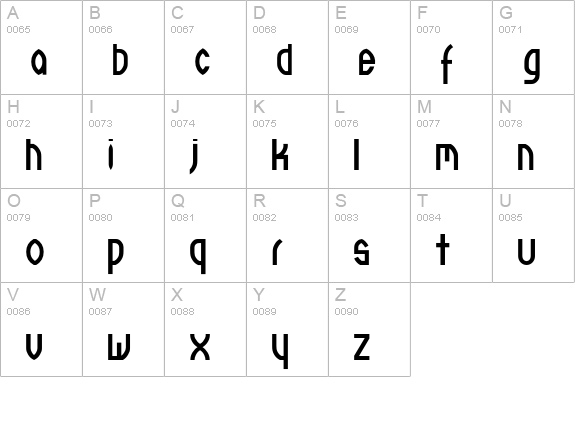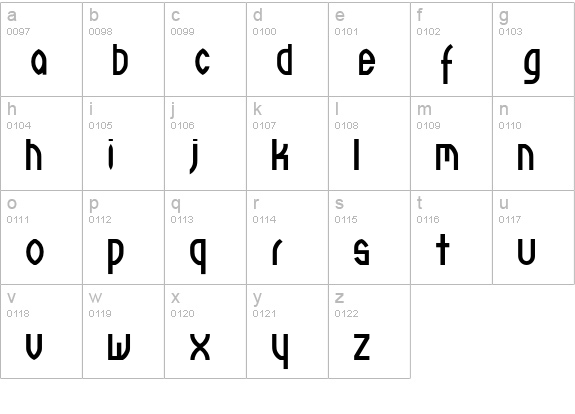
Kryptonic Font Details
Introducing the captivating and futuristic Kryptonic font, a versatile typeface that exudes a sense of modernity and innovation. With its sleek lines and unique geometric shapes, Kryptonic is perfect for creating eye-catching designs that demand attention. This cutting-edge font is available for free download at FontsMarket.com, making it easily accessible for designers looking to add a touch of boldness to their projects. Whether you're working on branding, advertising, or digital art, Kryptonic is sure to make a statement and leave a lasting impression on your audience. Embrace the power of Kryptonic font and unleash your creativity with this dynamic and striking typeface that is bound to elevate your designs to the next level. Download it today and explore the endless possibilities that this modern font has to offer.